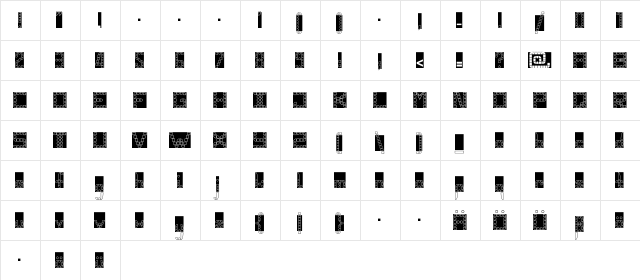
PangolinHoBl HollowBlack Font Preview
PangolinHoBl HollowBlack
PangolinHoBl HollowBlack Font Details
Design Context for PangolinHoBl Typeface
PangolinHoBl is a composed and adaptable typeface that performs quietly and consistently across a wide range of design contexts.